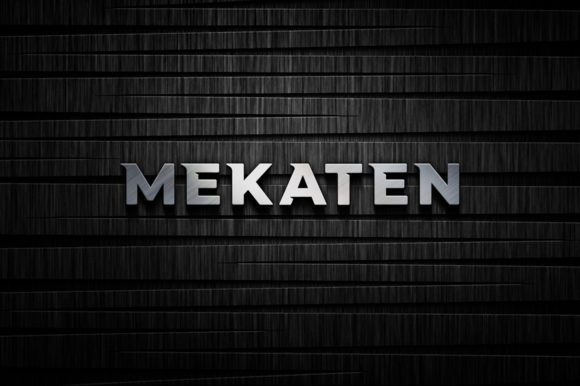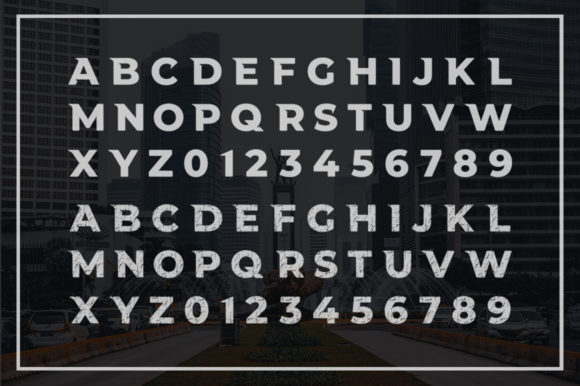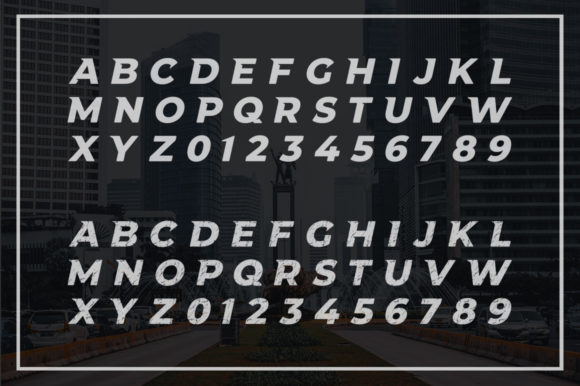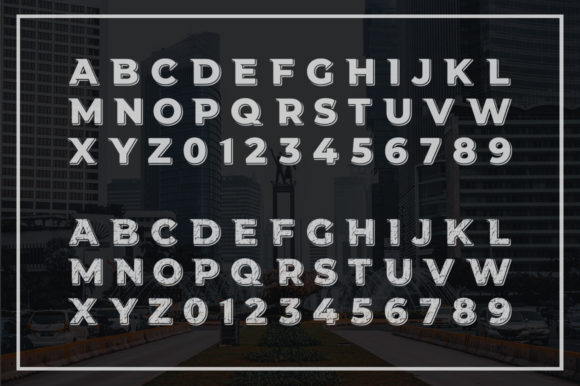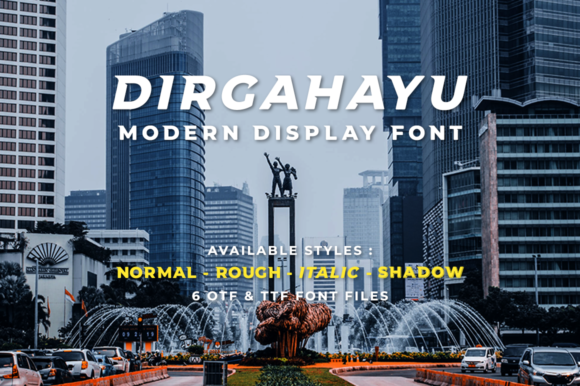
Introducing Dirgahayu Font: The Ultimate Display Font for Bold Creations
Are you tired of using the same old fonts for your designs? Do you want to add a touch of uniqueness and boldness to your creations? Look no further than Dirgahayu Font, a cool and bold lettered display font that’s perfect for designers and crafters alike. In this article, we’ll dive into the features and benefits of Dirgahayu Font, and explore how it can elevate your designs to the next level.
What is Dirgahayu Font?
Dirgahayu Font is a stunning display font that’s designed to make a statement. With its bold and edgy lettering, this font is perfect for creating eye-catching headlines, titles, and graphics. Whether you’re working on a logo, brochure, or social media post, Dirgahayu Font is sure to grab attention and leave a lasting impression.
Key Features of Dirgahayu Font
- Bold and Edgy Lettering: Dirgahayu Font features bold and edgy lettering that’s perfect for creating striking headlines and titles.
- Unique and Creative: This font is designed to be unique and creative, making it perfect for designers and crafters who want to add a touch of personality to their designs.
- High-Quality Design: Dirgahayu Font is designed with high-quality graphics, ensuring that it looks crisp and clear even at large sizes.
Benefits of Using Dirgahayu Font
So why should you choose Dirgahayu Font for your designs? Here are just a few benefits of using this amazing font:
- Adds Visual Impact: Dirgahayu Font adds a touch of boldness and edginess to your designs, making them stand out from the crowd.
- Perfect for Display Text: This font is designed specifically for display text, making it perfect for headlines, titles, and other prominent text elements.
- Increases Creativity: With its unique and creative design, Dirgahayu Font can help inspire your creativity and take your designs to the next level.
- Versatile: This font can be used for a wide range of design projects, from logos and brochures to social media posts and more.
Tips and Tricks for Using Dirgahayu Font
Here are a few tips and tricks for getting the most out of Dirgahayu Font:
- Use it for Headlines: Dirgahayu Font is perfect for headlines and titles, so use it to grab attention and draw the reader in.
- Experiment with Colors: Try out different colors and gradients to add depth and interest to your text.
- Mix and Match Fonts: Combine Dirgahayu Font with other fonts to create a unique and creative look.
- Pay Attention to Kerning: Make sure to adjust the kerning to ensure that your text looks balanced and visually appealing.
Dirgahayu Font is an incredible asset for any designer or crafter looking to add a touch of boldness and creativity to their designs. With its unique and edgy lettering, high-quality design, and ease of use, this font is perfect for a wide range of design projects. Whether you’re working on a logo, brochure, or social media post, Dirgahayu Font is sure to elevate your creations and leave a lasting impression.